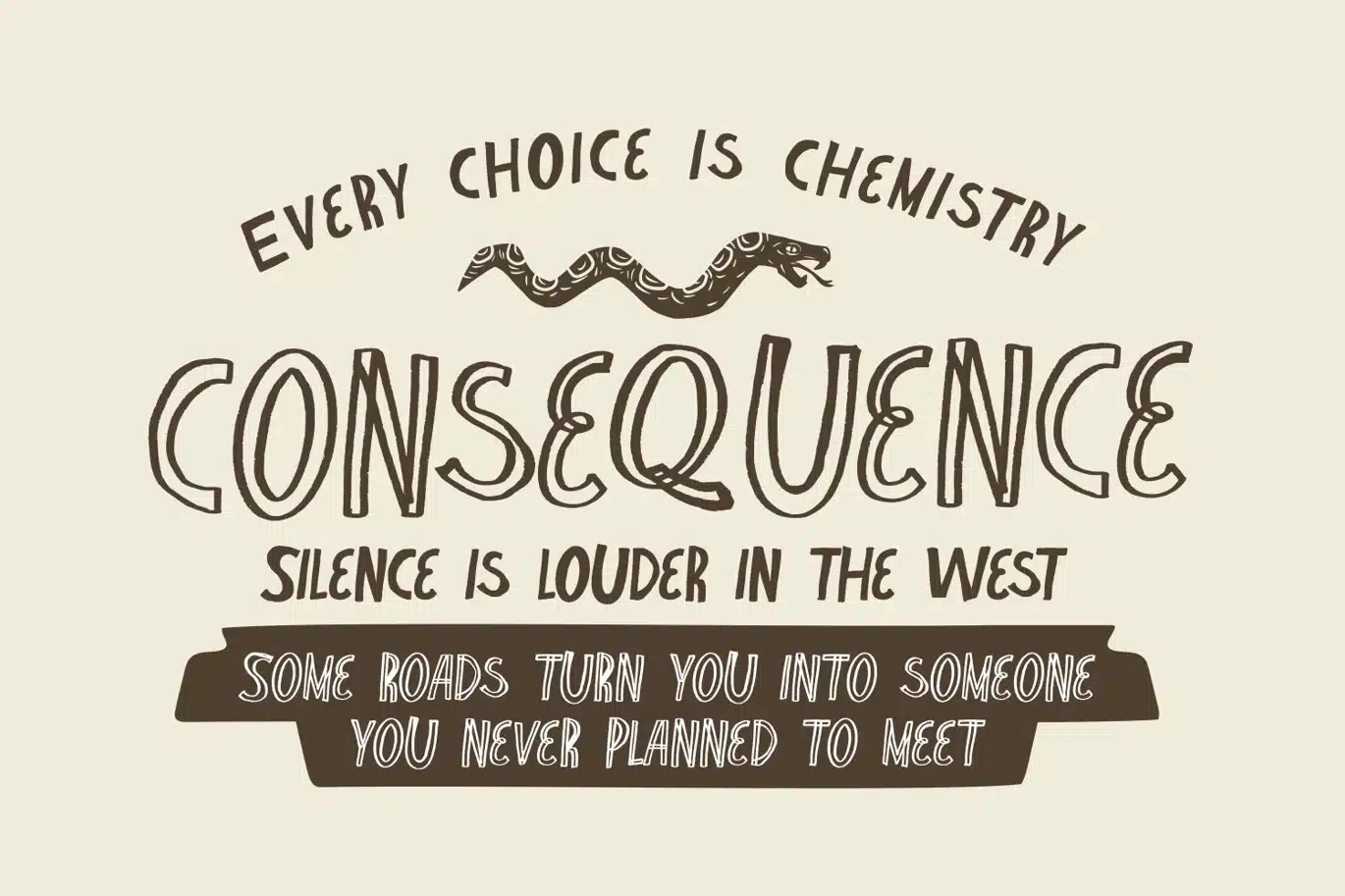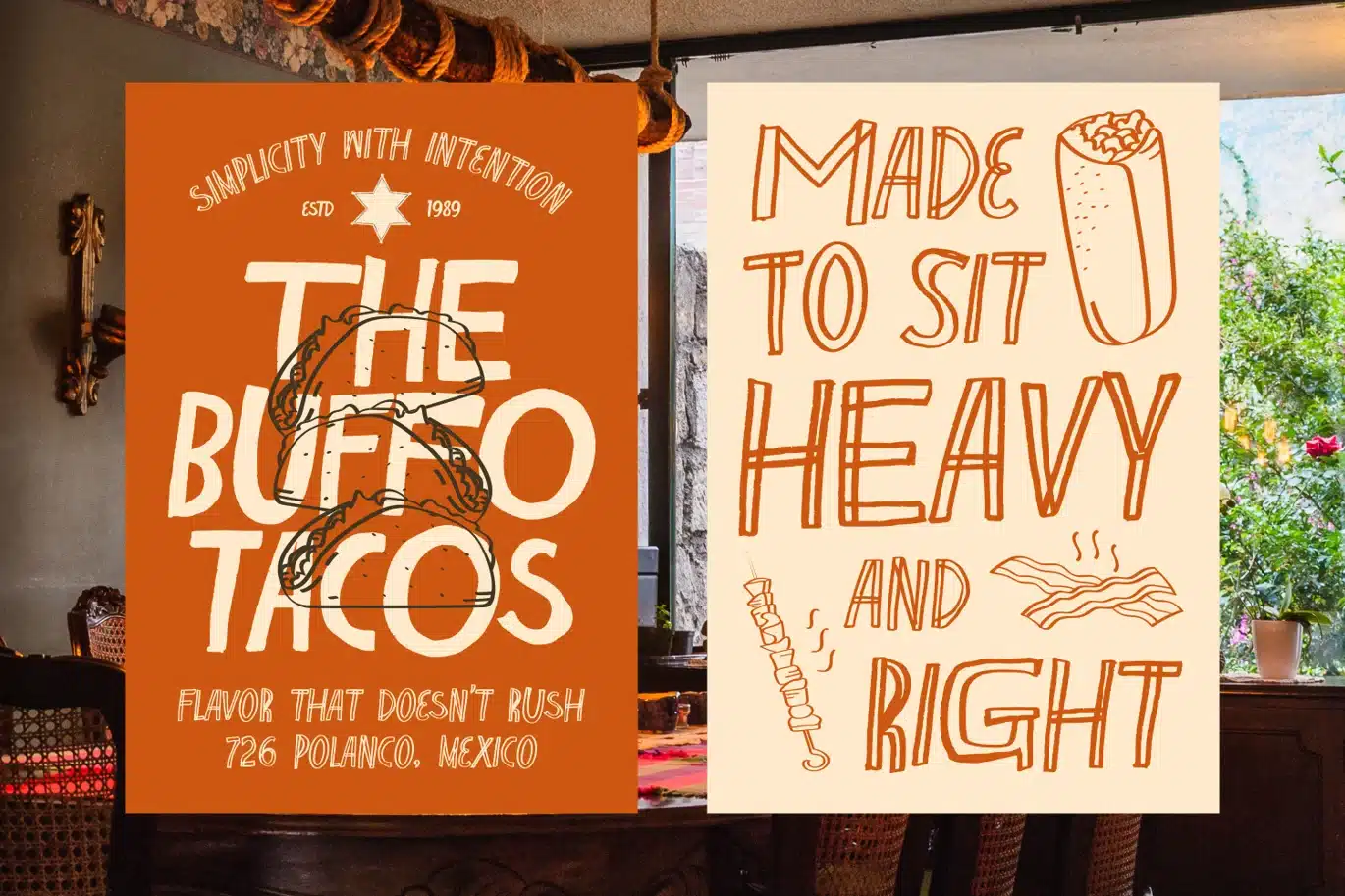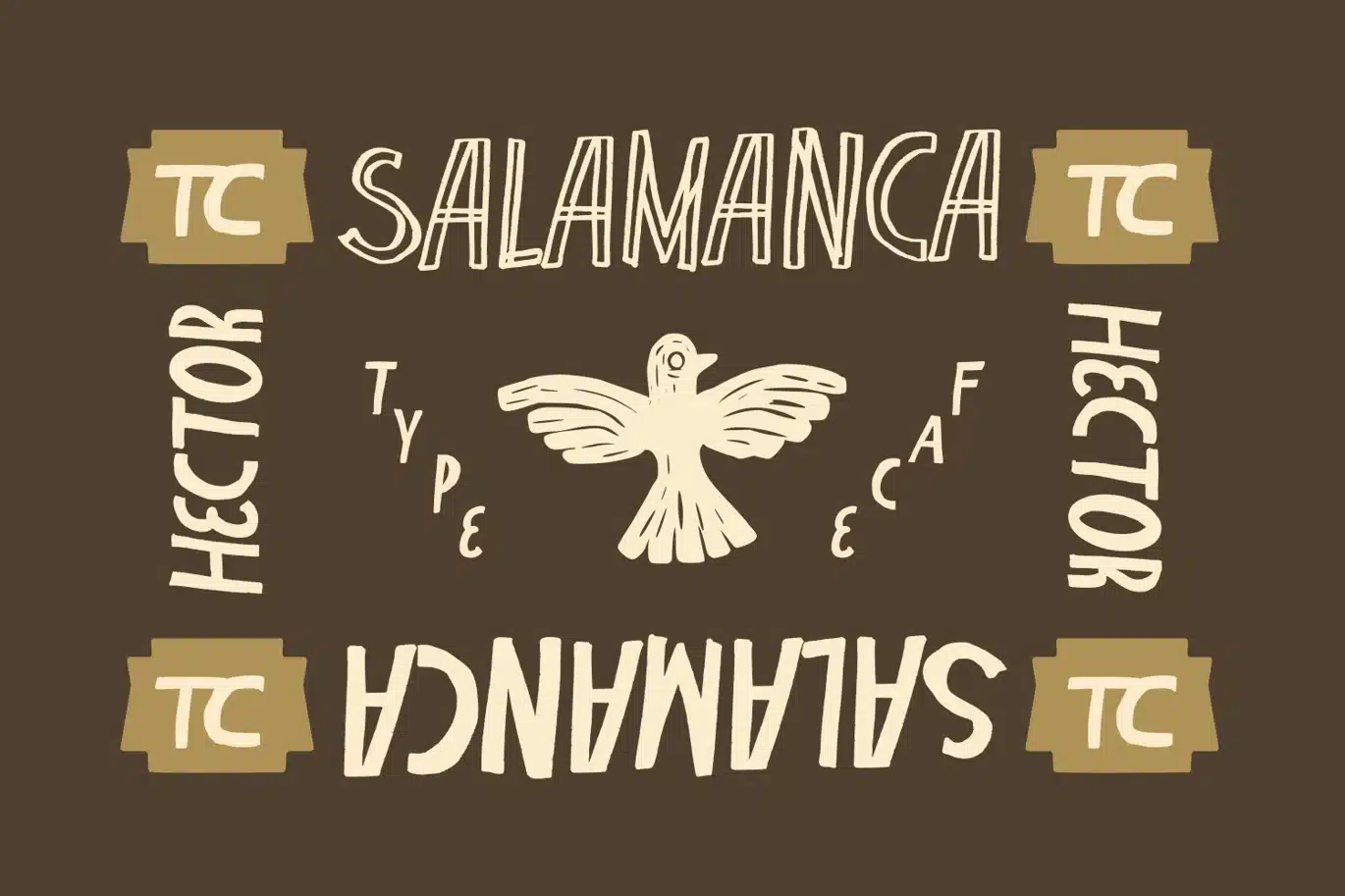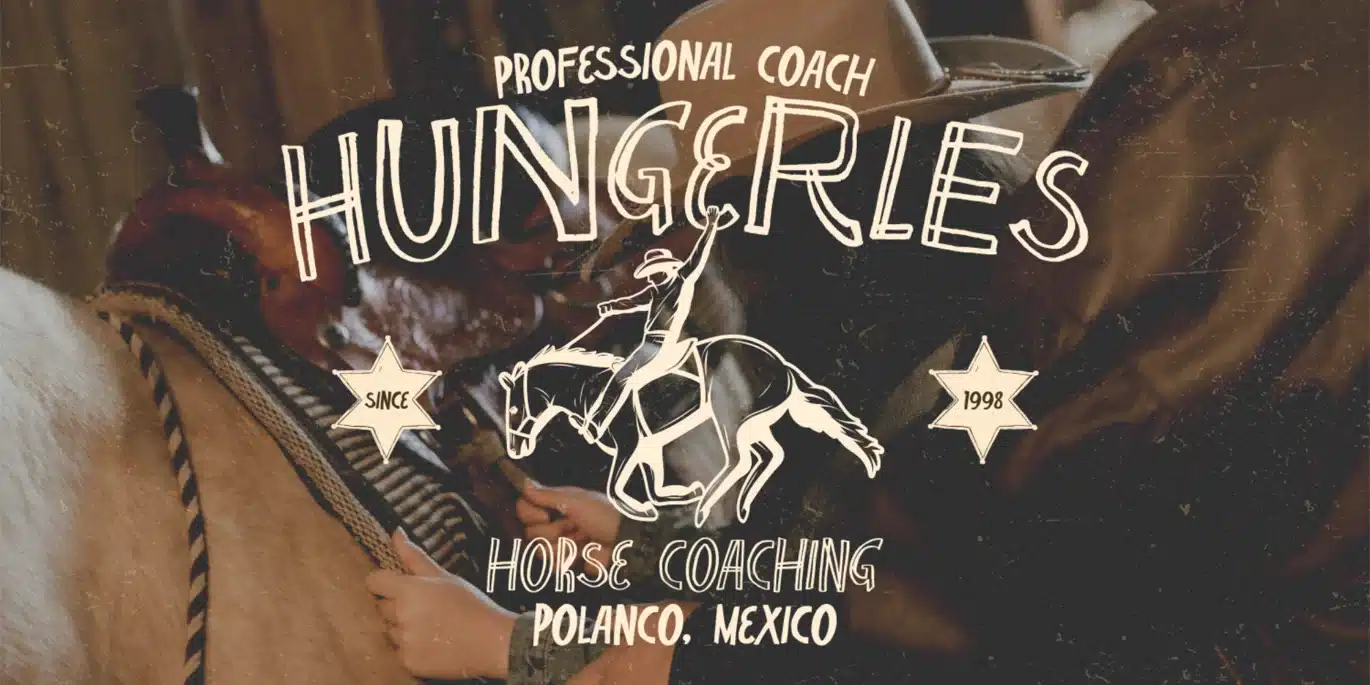
Don Rancho – Quirky Western Hand-Drawn Font Duo
Don Rancho is a quirky hand-drawn western display font inspired by desert landscapes, vintage ranch signage, and Mexican street typography.
This font captures the imperfect charm of handcrafted lettering with rough edges, playful shapes, and expressive character forms. Designed as a font duo, Don Rancho includes a bold rough style and a matching outline version that work beautifully together for layered designs.
Its raw, handmade casualness makes it perfect for projects that need an authentic rustic feel.
Don Rancho works great for:
- western branding
- Mexican restaurant logos
- food packaging
- coffee shop identity
- vintage posters
- apparel designs
- rustic packaging
- desert-themed graphics
With its playful imperfections and handcrafted energy, it brings a bold Western spirit into any design.